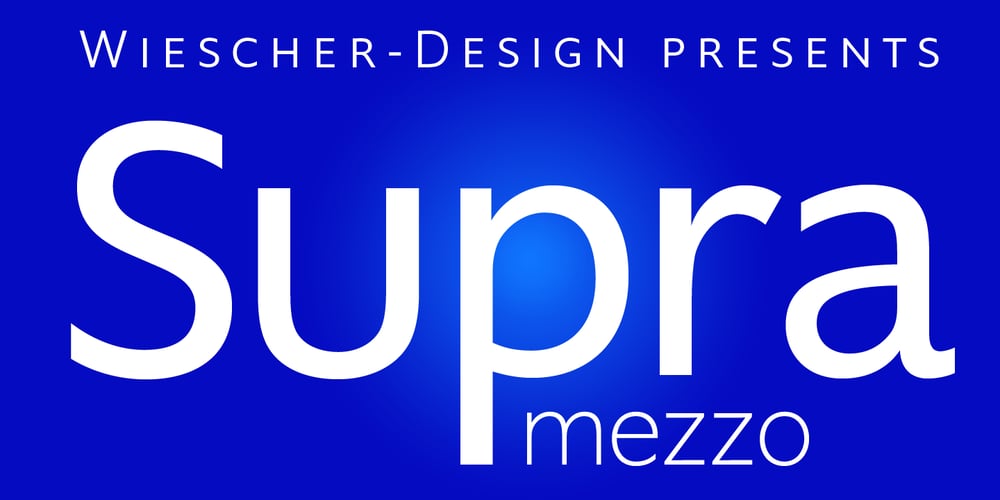
Supra Mezzo Font Family was designed by Gert Wiescher and published by Wiescher Design. Supra Mezzo contains 16 styles and family package options. »Supra Mezzo« – designed by Gert Wiescher in 2012/13 – is an unusual addition to the Supra family, a weight in between the normal and the condensed width. This cut comes in very handy if you need to put lots of text into a relatively small space without loosing readability. The compactness with great legibility makes Supra Mezzo absolutely unique. The light and normal weights and the dominant x-height with its high ascenders make for easy reading of long copy. The heavy and x-light weights are great for elegant headlines. Supra is an OpenType family.